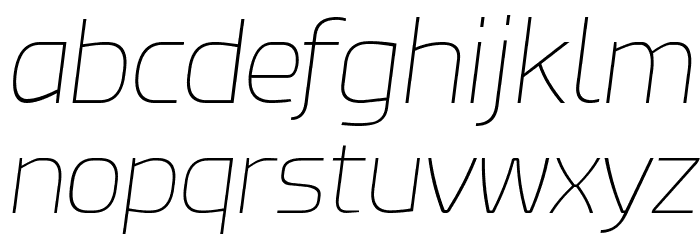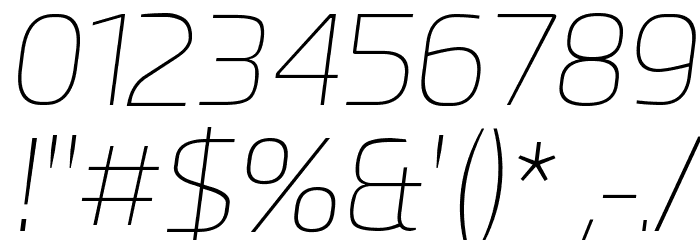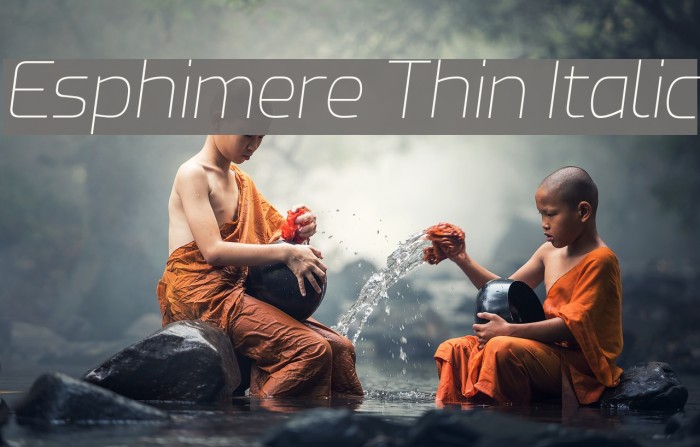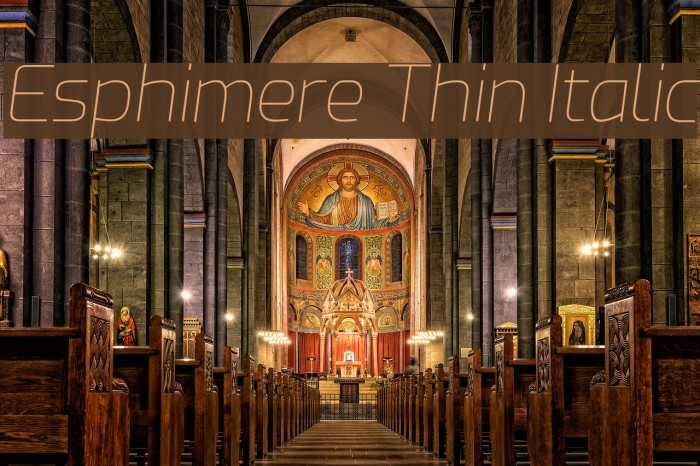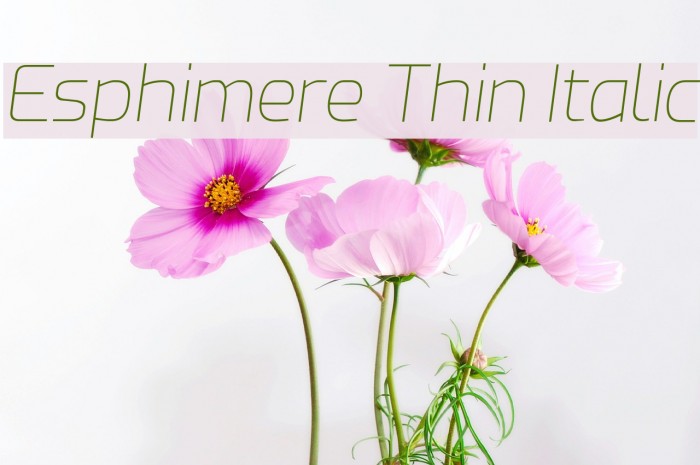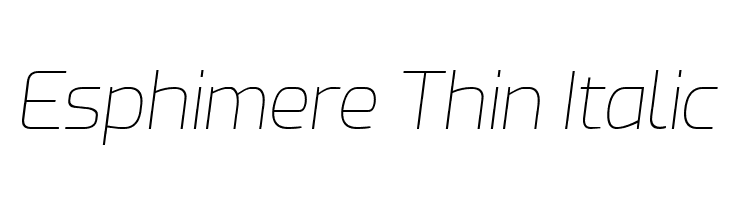
Esphimere Thin Italic Font
This font features a sleek and modern design with a thin, elegant structure. The italic style adds a dynamic and sophisticated touch, making it suitable for contemporary projects. The characters are slightly elongated, giving a sense of movement and fluidity. The font maintains a consistent stroke width throughout, contributing to its clean and minimalistic appearance. The spacing between characters is balanced, ensuring readability while maintaining its stylish look. This font is ideal for projects that require a modern and refined aesthetic.
A sleek, modern, thin italic font with a dynamic and elegant style.
- Proposed Projects: Ideal for fashion magazines, modern branding, tech startups, and elegant invitations.